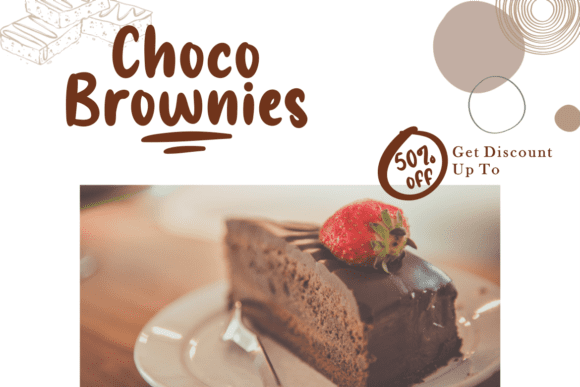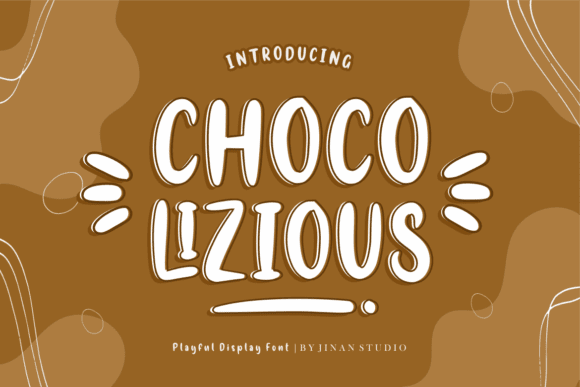
Chocolizious Display Font
Chocolizious Display Font is a playful and delicate display font, suitable for a wide spectrum of applications. From greeting cards to headlines, this font will guarantee a romantic touch to each of your creations!